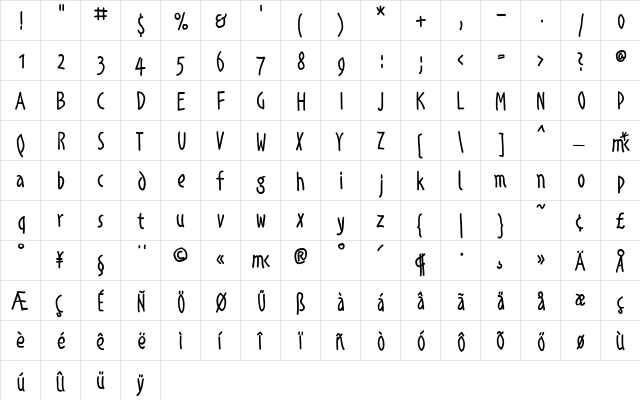
AlphabetismHand Regular
Design Context for AlphabetismHand Typeface
AlphabetismHand flows with the natural rhythm of handwritten lettering, making it ideal for designs that call for warmth and personal expression.
Font Pairing: Combine AlphabetismHand with a simple geometric sans for maximum contrast — the tension between flowing curves and clean structure is a classic typographic pairing.
Pro Tip: Use AlphabetismHand for short runs of text — names, titles, or taglines. Extended body copy in script faces tires the eye quickly.